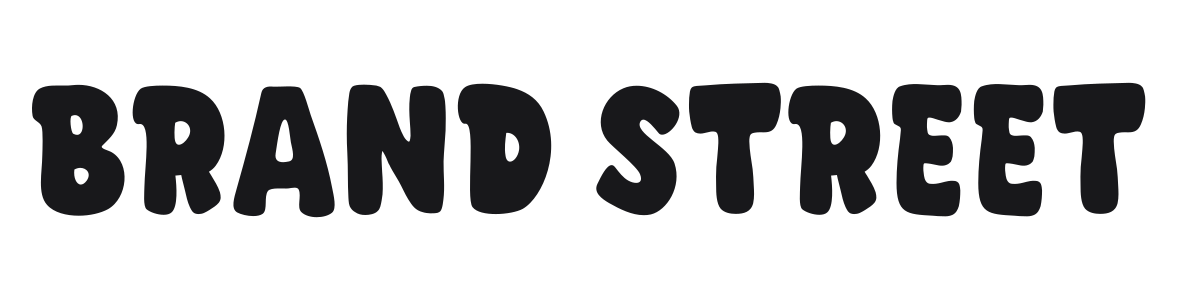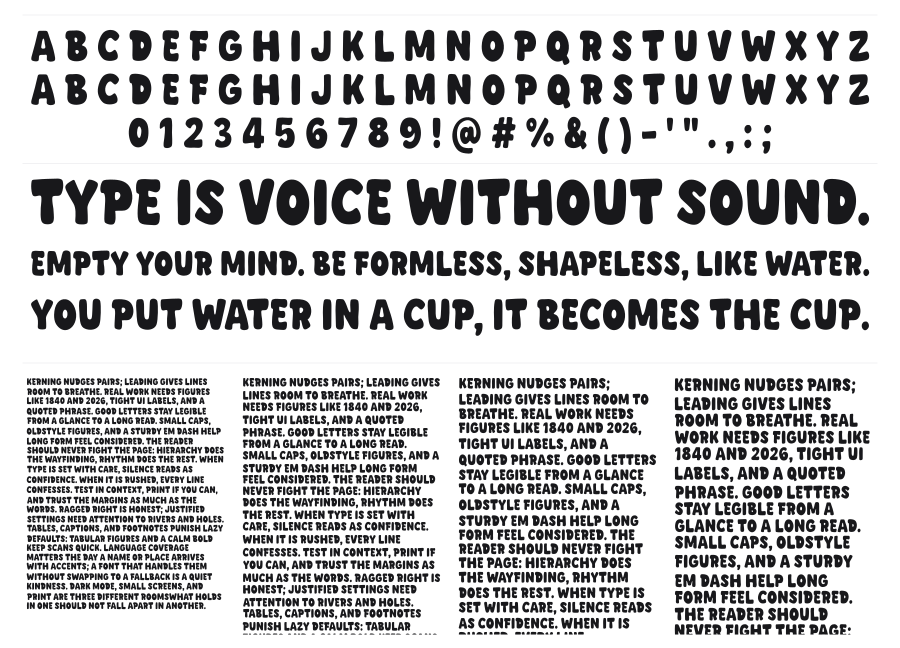
Brand Street
by Origin Type · Website
Brand Street is a heavy rounded sans with a bubbly, inflated personality that sits somewhere between a comic book font and a street-culture logo. The thick strokes and soft terminals give it a warm, approachable energy without feeling childish. It works best large, where its bold presence and casual confidence really land.